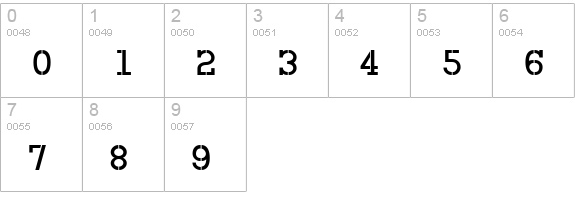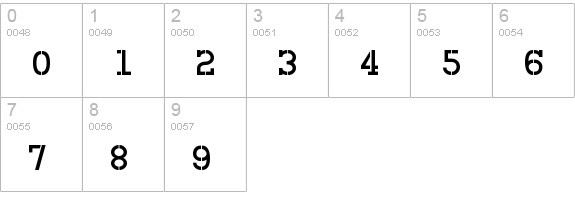
Introducing Combat Ready BTN font, a bold and powerful typeface designed to leave a lasting impression. Inspired by military aesthetics, this font exudes strength and determination, making it perfect for projects that require a commanding presence. Combat Ready BTN font features sharp edges and a distinctive style that sets it apart from traditional fonts. Whether you're looking to create eye-catching headlines, striking logos, or impactful designs, this font is sure to deliver. Best of all, Combat Ready BTN font is available for free download at FontsMarket.com. Take advantage of this incredible opportunity to enhance your projects with this dynamic and versatile font. Download Combat Ready BTN today and make a statement with your designs.